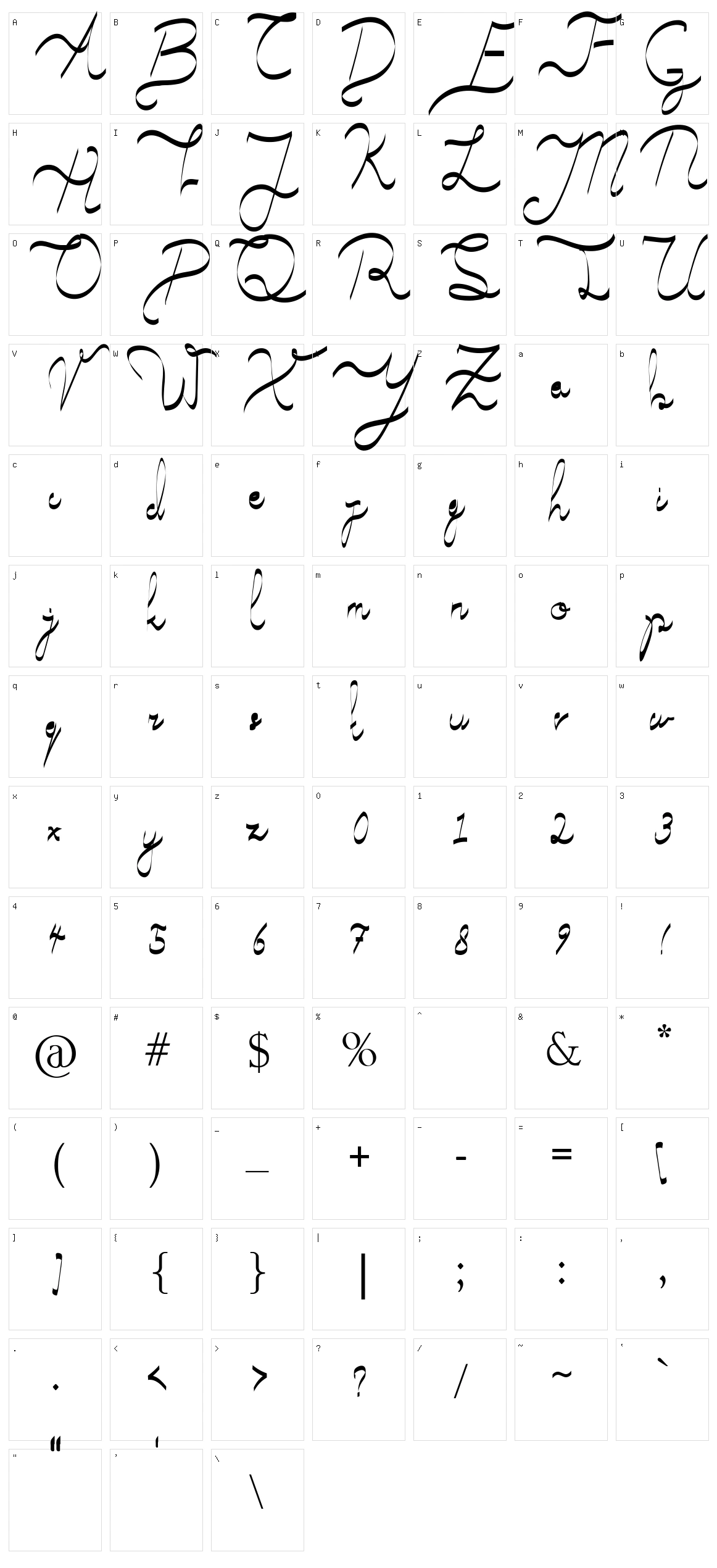
The free font Wahyucakra is carefully designed by titissetyo, showcasing a thoughtful balance of creativity and usability and falls under the Script font style. When you download the ZIP file, it contains only 3020.99 KB of font files, making it lightweight and quick to download. Please review the license details below to understand permitted usage and distribution rights. If license information is not available, we recommend using this font for personal projects only or contacting the author directly for commercial usage permissions.